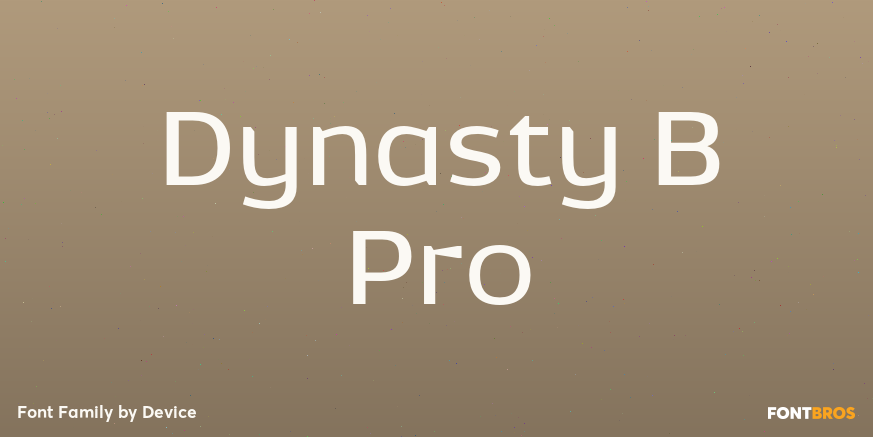
Dynasty B Pro
About Dynasty B Pro
Dynasty is an extensive and versatile family that exploration and modernisation of the typographic quirks associated with the ?American Gothic? type school (in much the same way as English Grotesque was an exploration of Gill/Johnston idea-space) and…